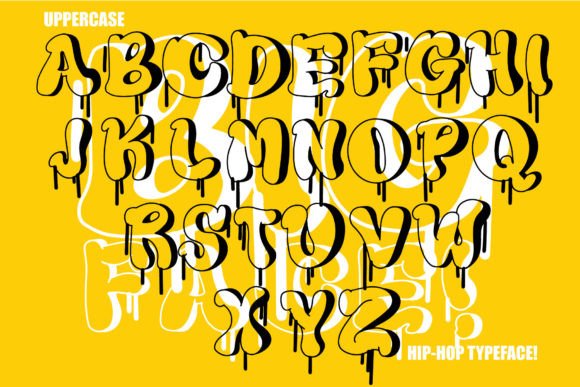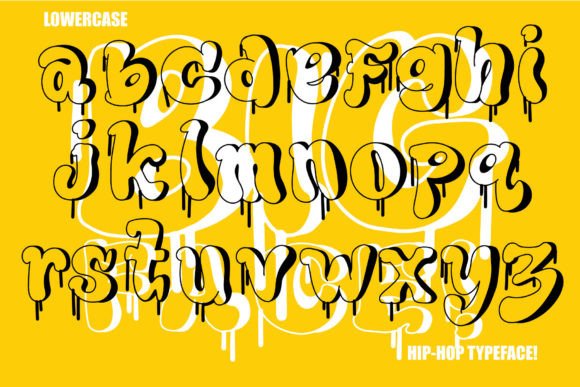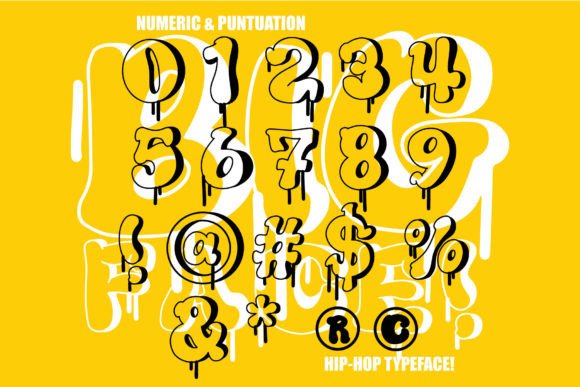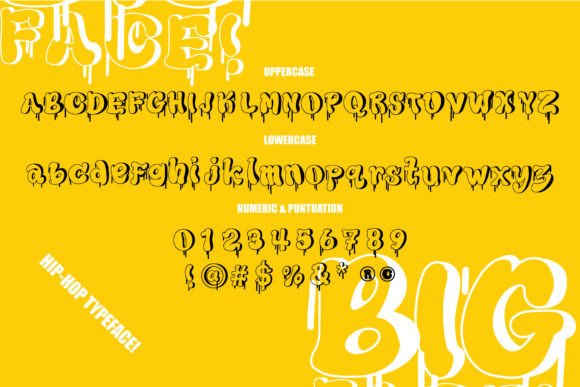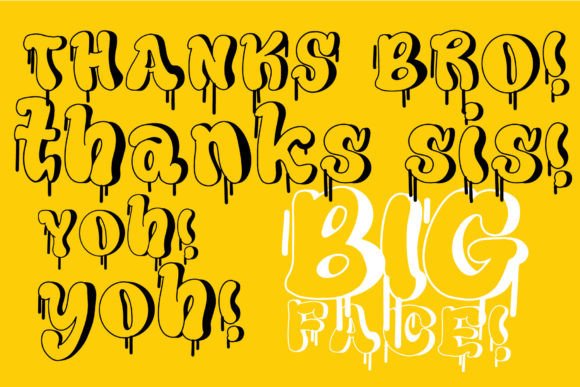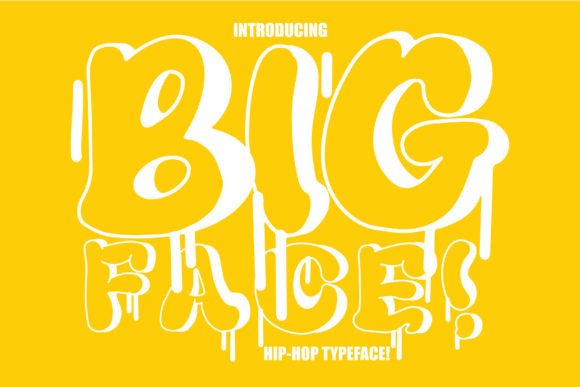
Unleashing Creativity with Big Face! Font
Who among us hasn’t had that moment when we’re brainstorming ideas for a project, and suddenly, the perfect font pops into our minds? It’s like a spark of inspiration that sets our creativity ablaze. For designers, that moment can be a game-changer. And for those who are looking for a font that embodies playfulness and authenticity, Big Face! Font is the perfect choice.
Big Face! Font is a cool, bubbly, graffiti-style display font that’s designed specifically for children’s activities and school projects. Its unique design makes it an excellent choice for creating eye-catching posters, flyers, and other materials that need to grab attention. But what makes Big Face! Font truly valuable for designers is its ability to add a touch of whimsy and personality to any project.
Key Features of Big Face! Font
- Unique Characteristic: The font’s most distinctive feature is its oversized, cartoon-like design, making it ideal for playful and humorous applications.
Big Face! Font Review
Overall, I think Big Face! Font is a fun and quirky addition to any design project. It’s perfect for making a statement or adding some personality to your text. ✨ I love how the font’s bold, oversized style can add a sense of drama and flair to even the most mundane text.
- Key Features: Big Face! Font is a sans-serif font with a highly exaggerated, oversized style. It’s great for headings, titles, and any text where you want to make a bold statement.
- Style Options: The font comes in a range of styles, from casual to formal, so you can choose the perfect fit for your project.
However, there are a few limitations to consider. ⚠️ The font’s oversized style can be overwhelming if used too much, so be sure to use it sparingly to avoid visual fatigue. Additionally, the font may not be the best choice for large blocks of text, as it can be difficult to read.
Overall, I think Big Face! Font is a great addition to any designer’s toolkit. While it may not be the best choice for every project, it’s perfect for adding a bit of personality and flair to your designs.
Tips for Getting the Most Out of “Big Face! Font”
To get the most out of “Big Face! Font”, use it sparingly to create emphasis and draw attention to important text.
Combine “Big Face! Font” with other creative elements, such as graphics and images, to create visually appealing designs.
“Big Face! Font” is commonly used for:
- Emphasis and call-outs
- Brand identity and logos